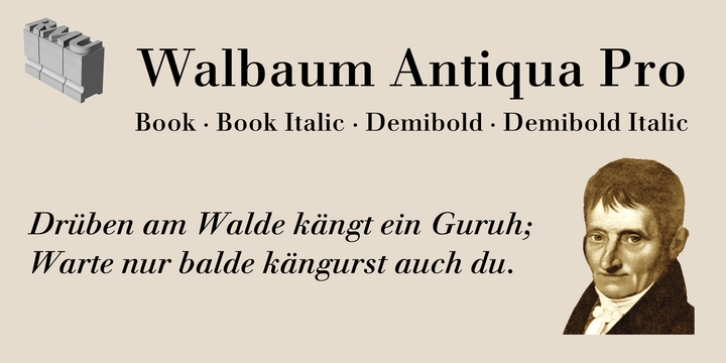
Justus Erich Walbaum,
RMU
Walbaum Antiqua Pro
is an RMU redesign of a German font classic, with three different number forms and small caps throughout all font styles.